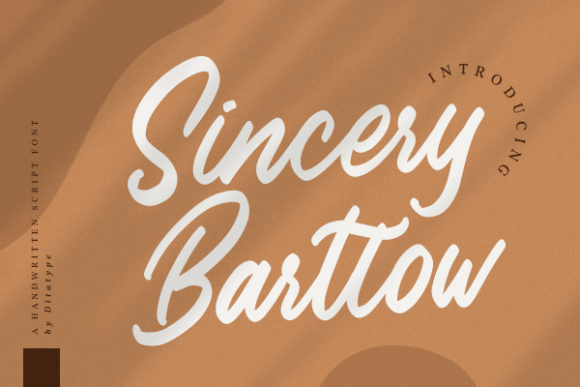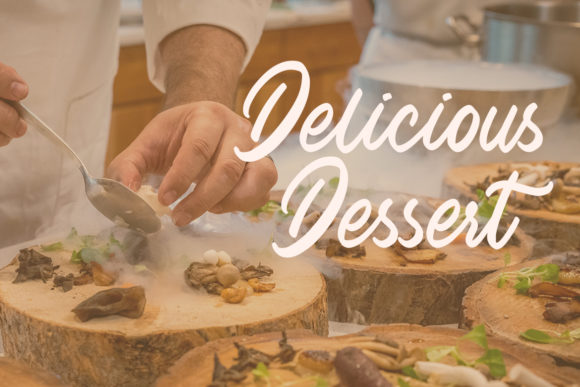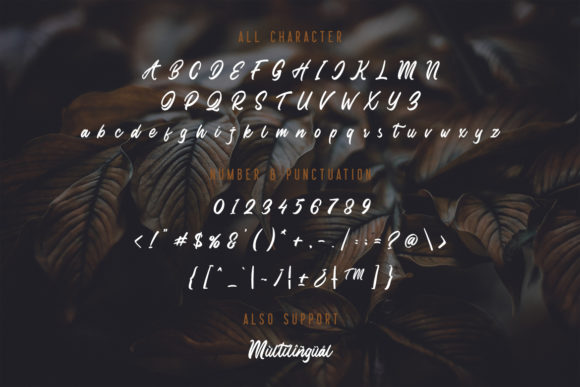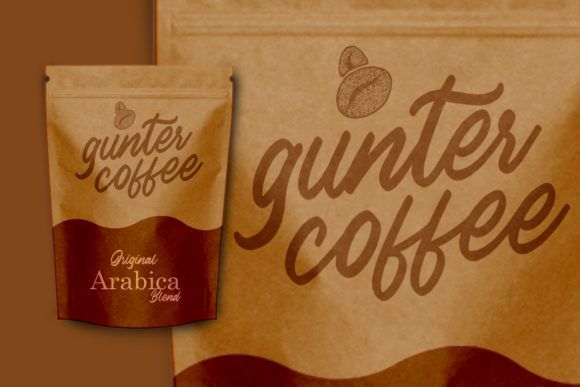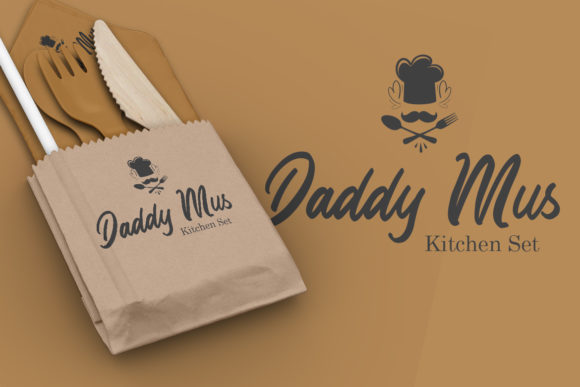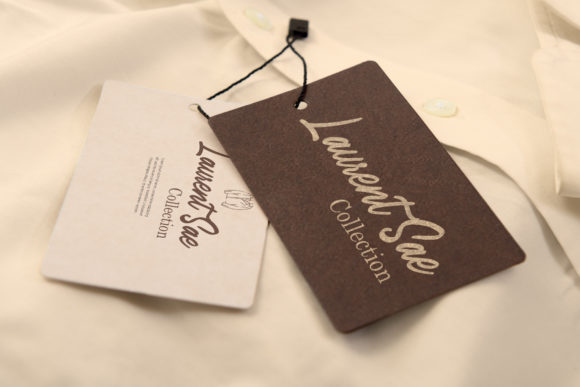
Sincery Bartlow Font
About Sincery Bartlow Font
Sincery Bartlow is a gorgeous handwritten font, created with the help of a brush pen. It's sweet and round characters make a very versatile font, suitable to a wide variety of projects. Get inspired by Sincery Bartlow’s authenticity, and write breathtaking wedding invitations, logos, birthday invitations, greeting cards, and so much more.